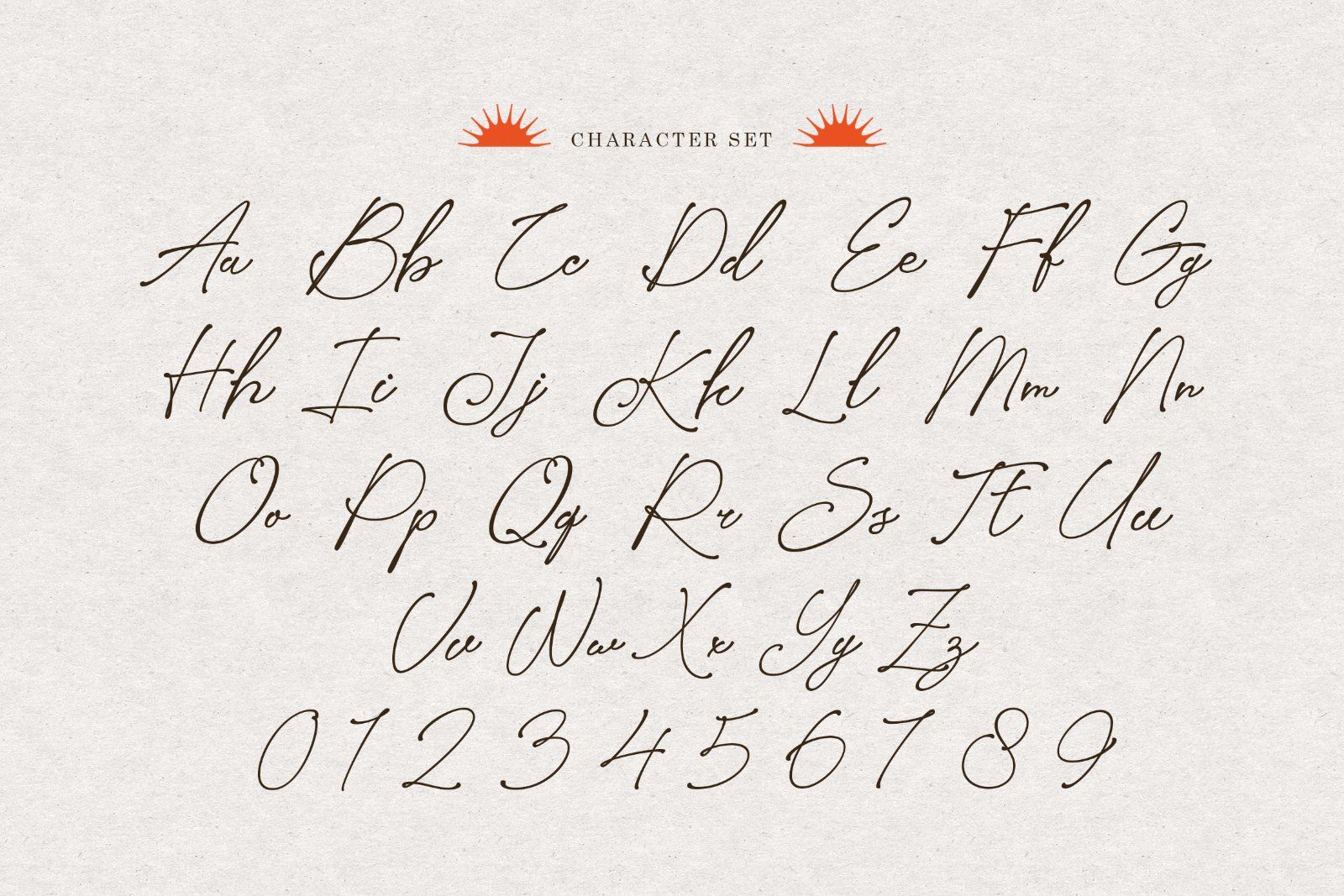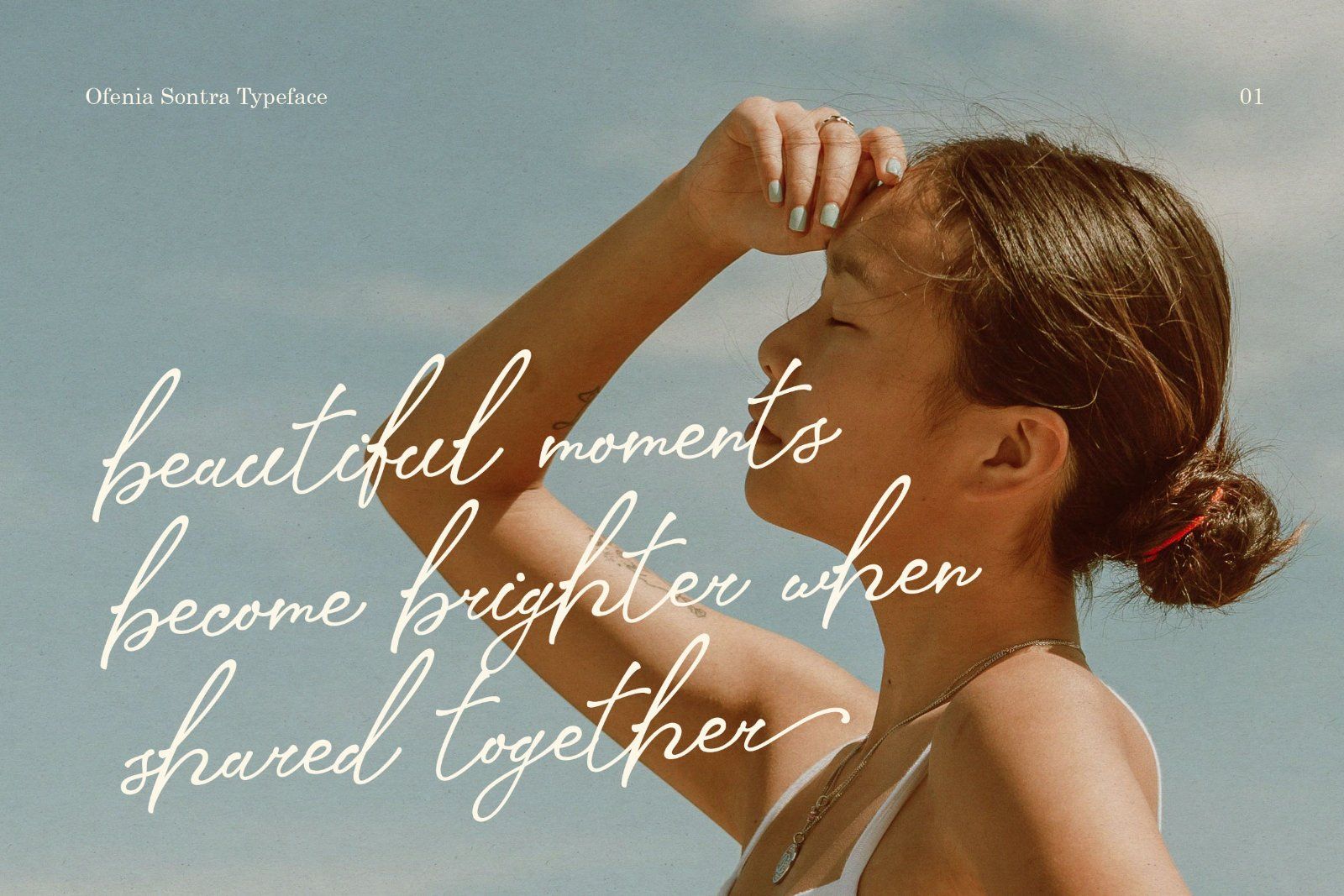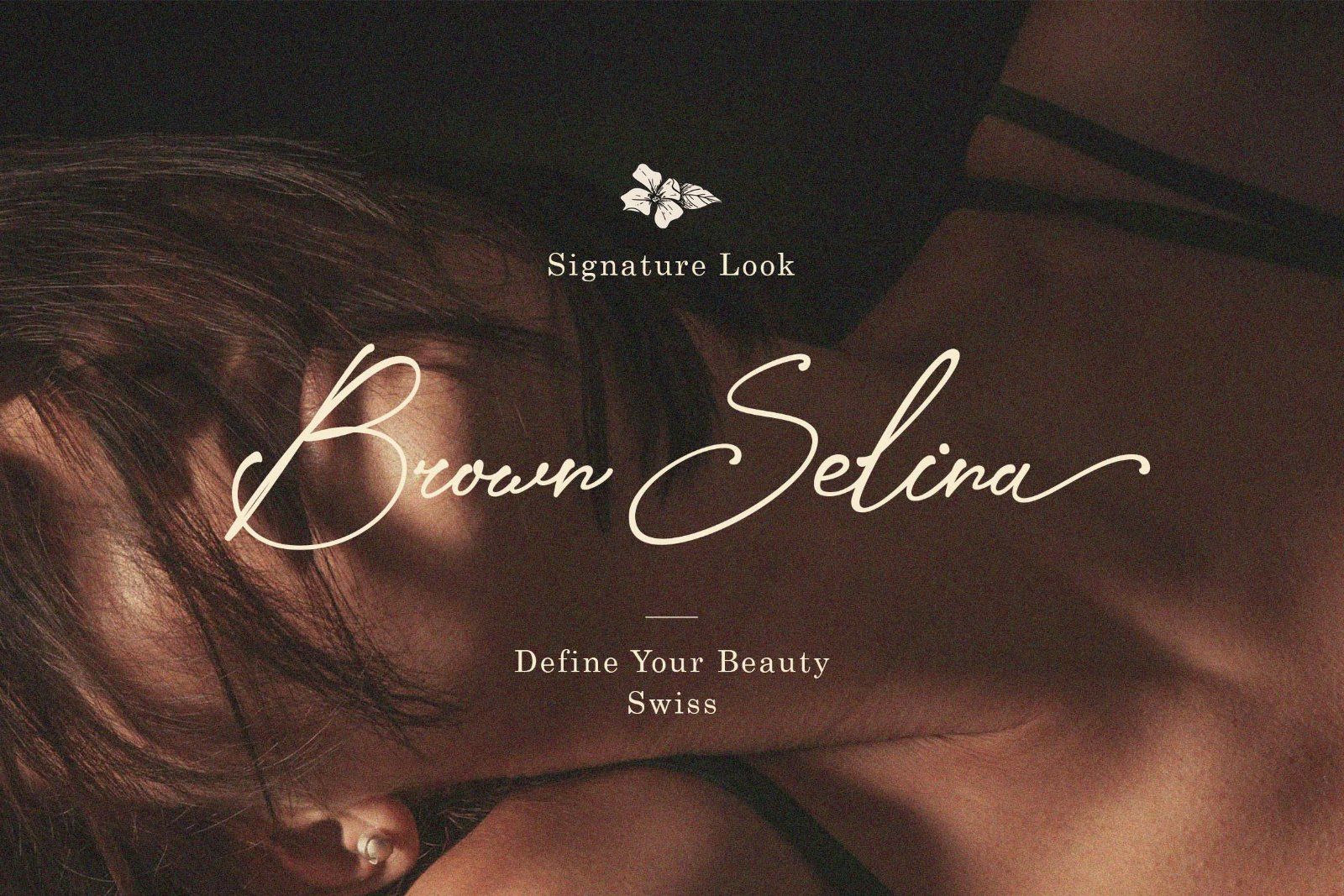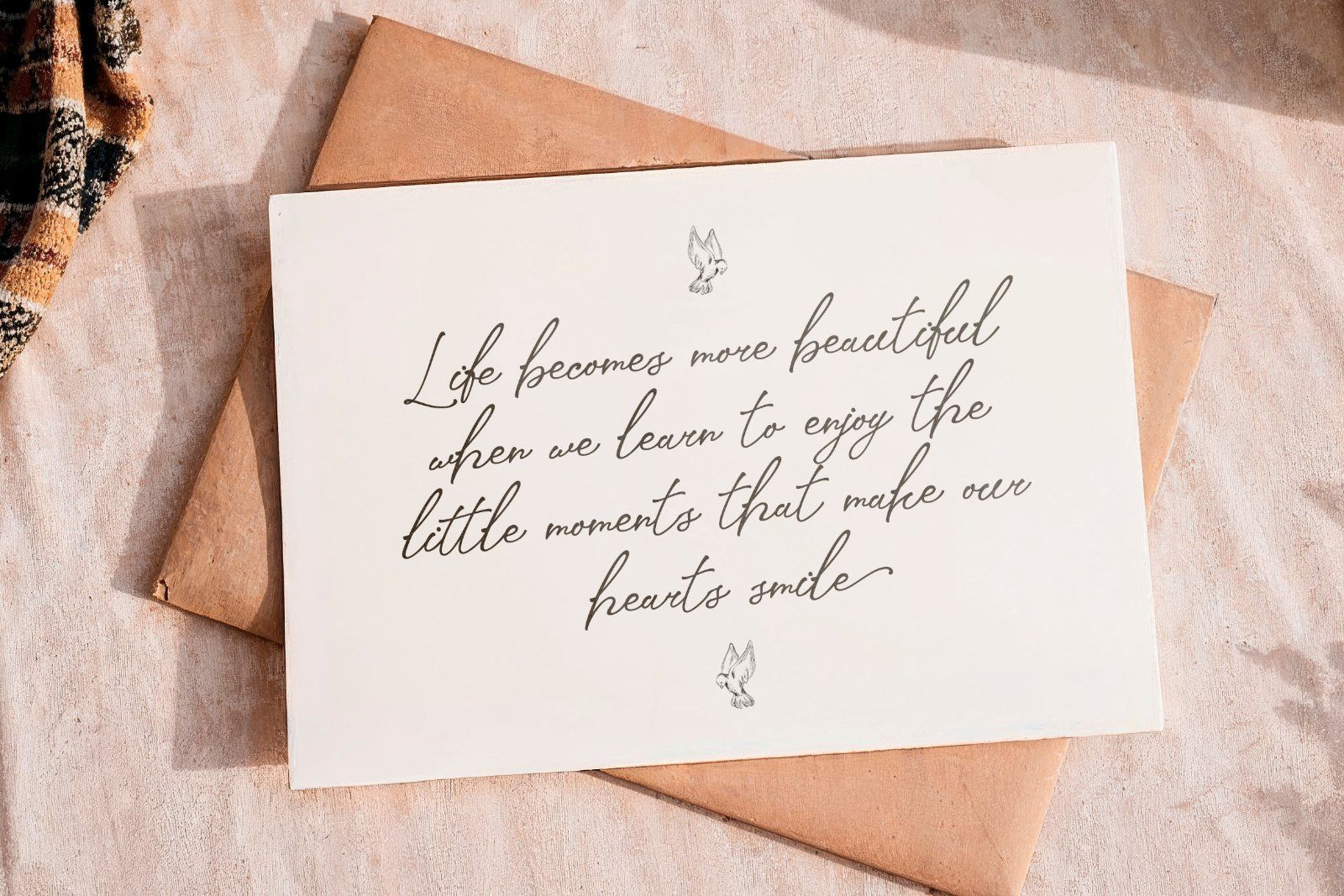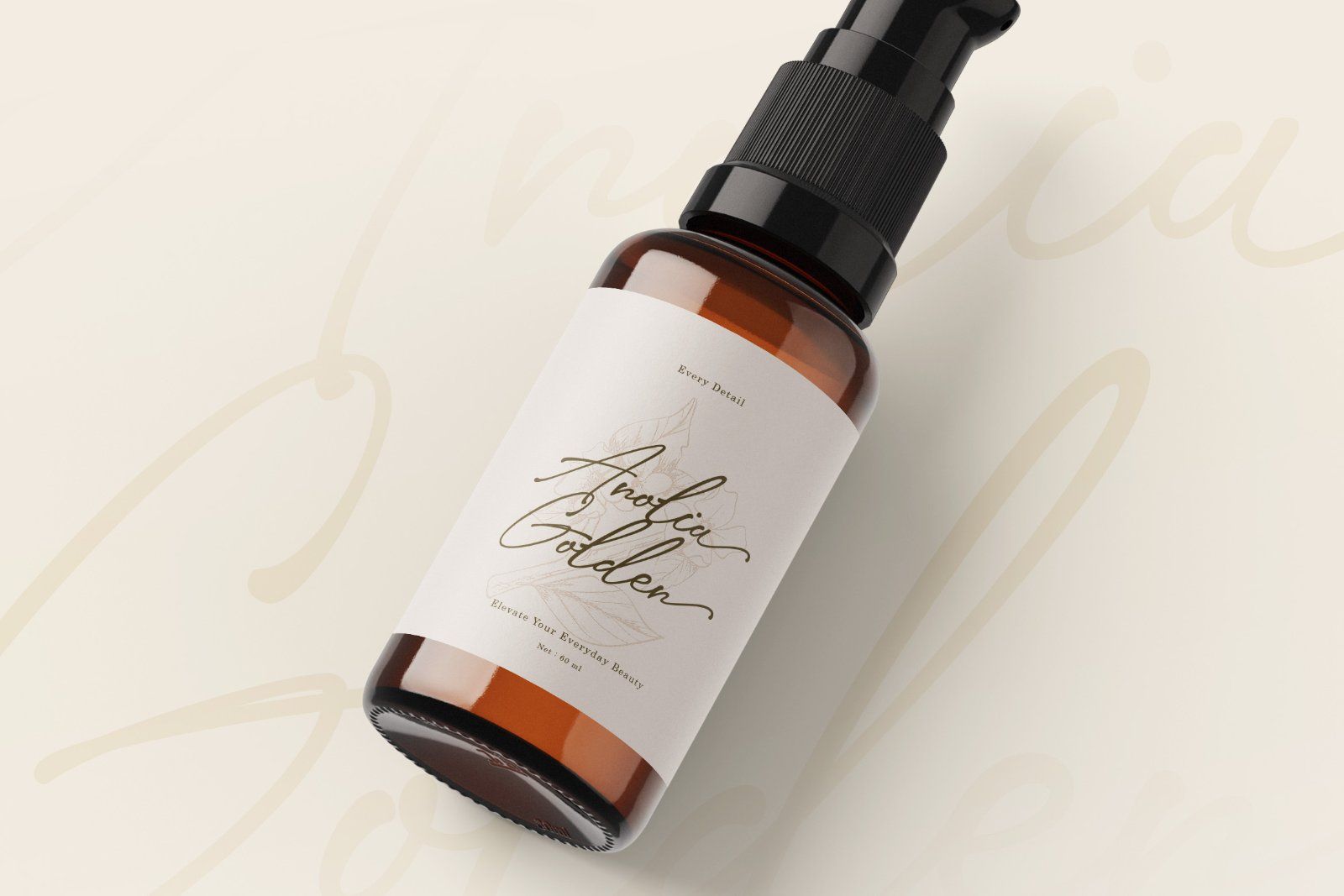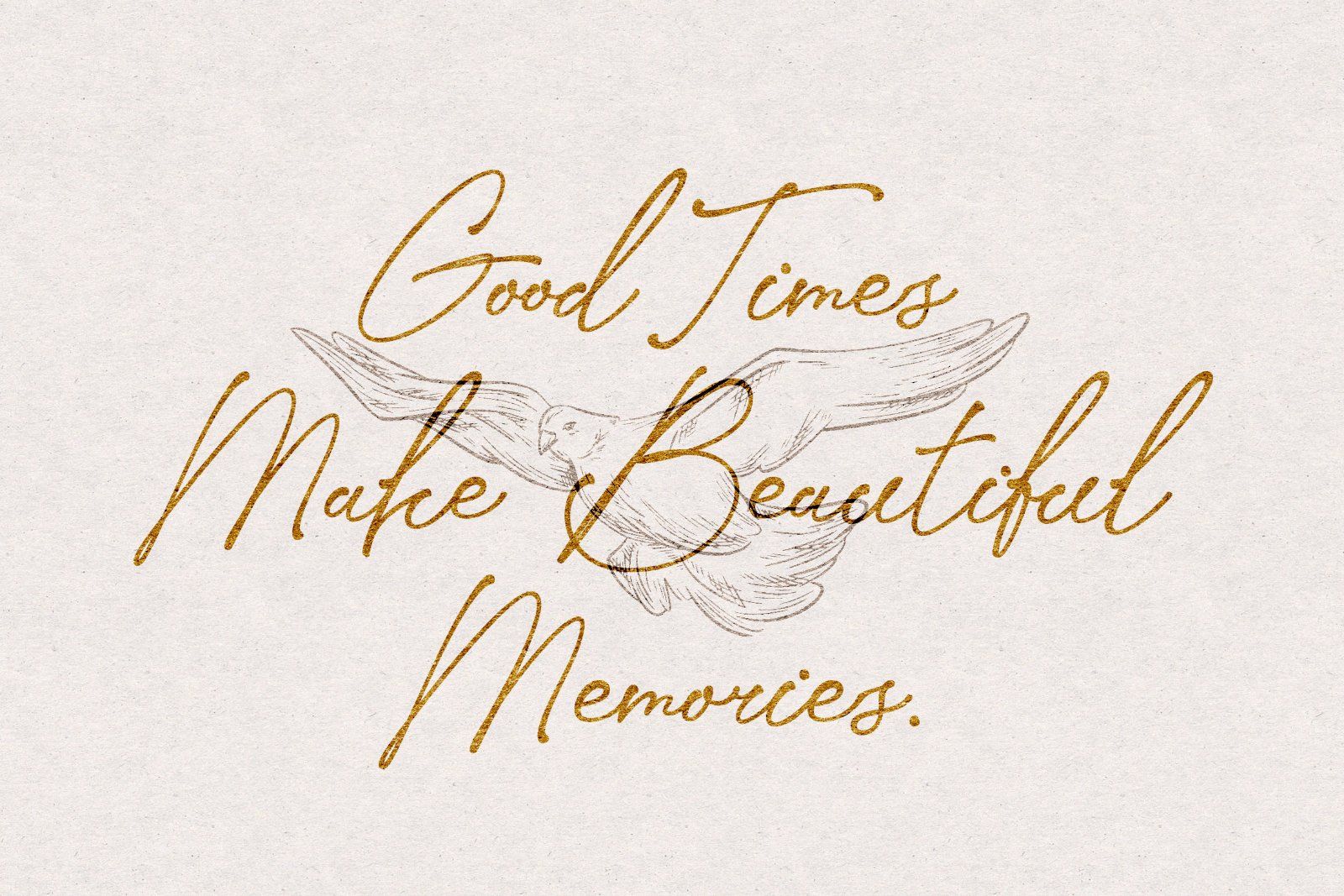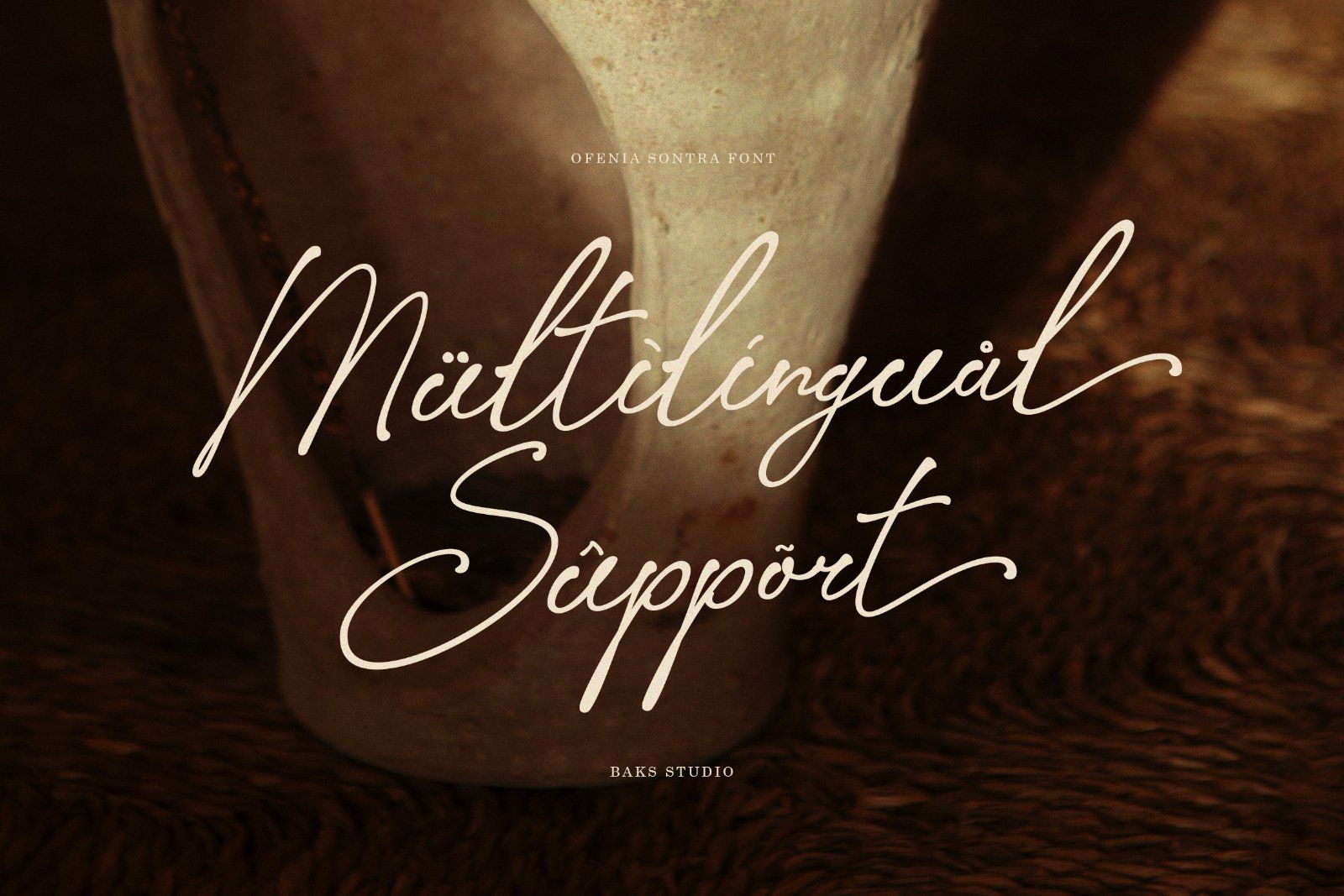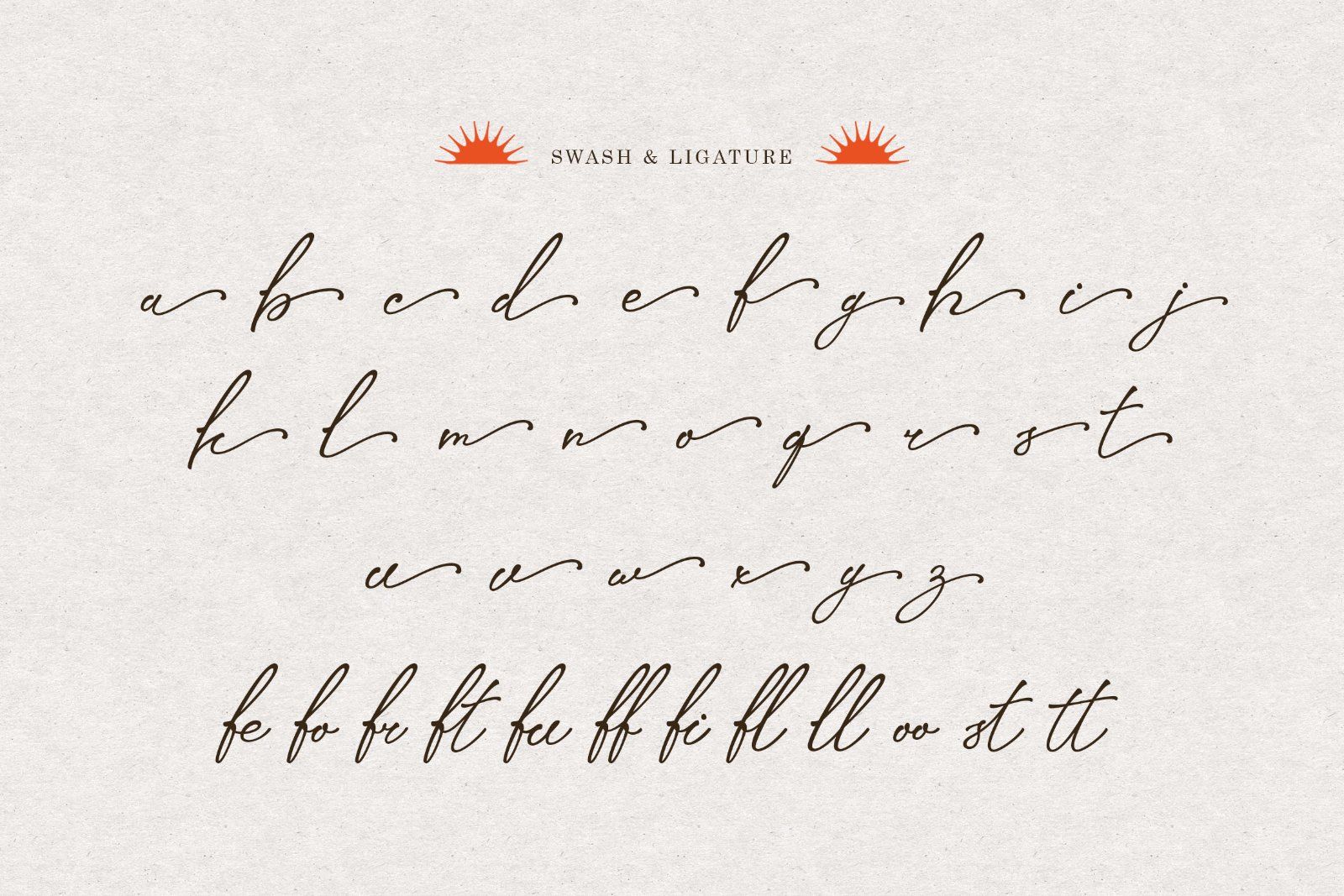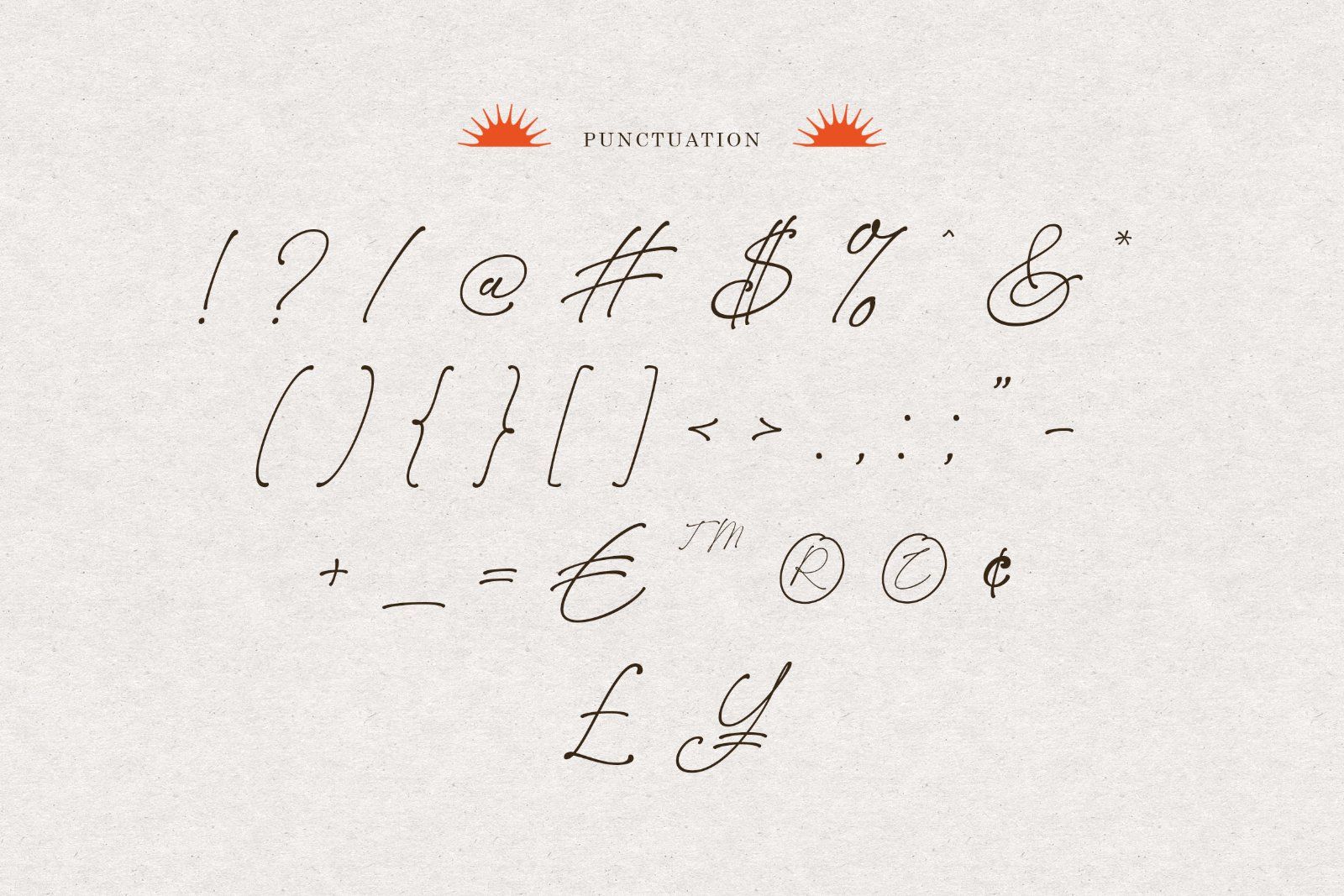
Ofenia Sontra is a beautifully crafted script font that seamlessly merges timeless elegance with a classic retro aesthetic. Designed with fluid curves, delicate swashes, and organic calligraphic motion, this typeface brings an effortless touch of sophistication and warmth to any creative composition.
Available with :
• Uppercase
• Lowercase
• Number & Punctuation
• Many Alternate & Ligatures